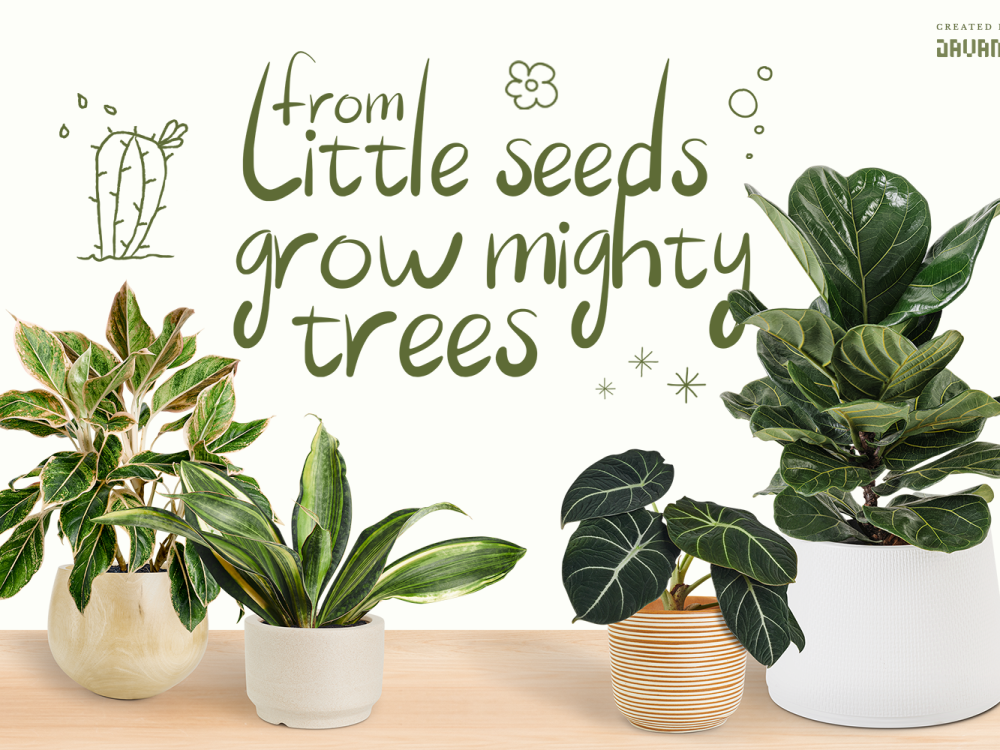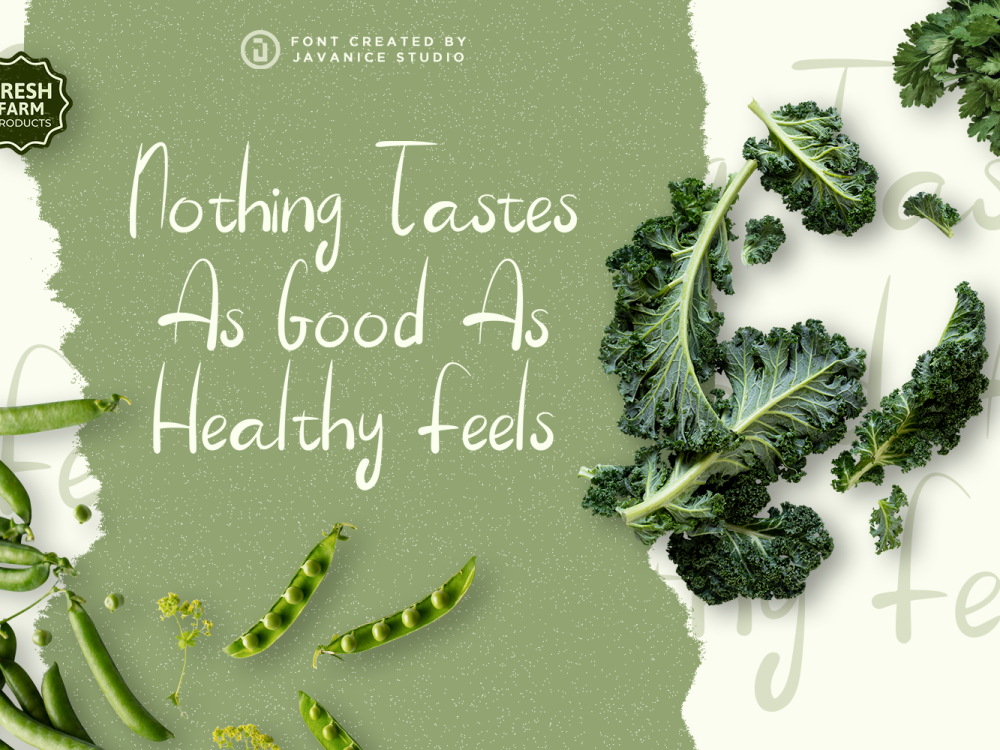
Astaliaya Free Font
Introducing Astaliaya Free Font, a contemporary handwritten font that exudes modernity and charm. Its versatility makes it a perfect match for a wide range of projects, including branding endeavors, apparel designs, labels, magazines, books, greeting cards, wedding invitations, packaging, fashion-related works, makeup products, stationery, and all your advertising needs. Whether used to express words above a background or to add a touch of elegance to your creations, Astaliaya is the ideal choice to bring your vision to life. If you like it don’t forget to check out the full version.